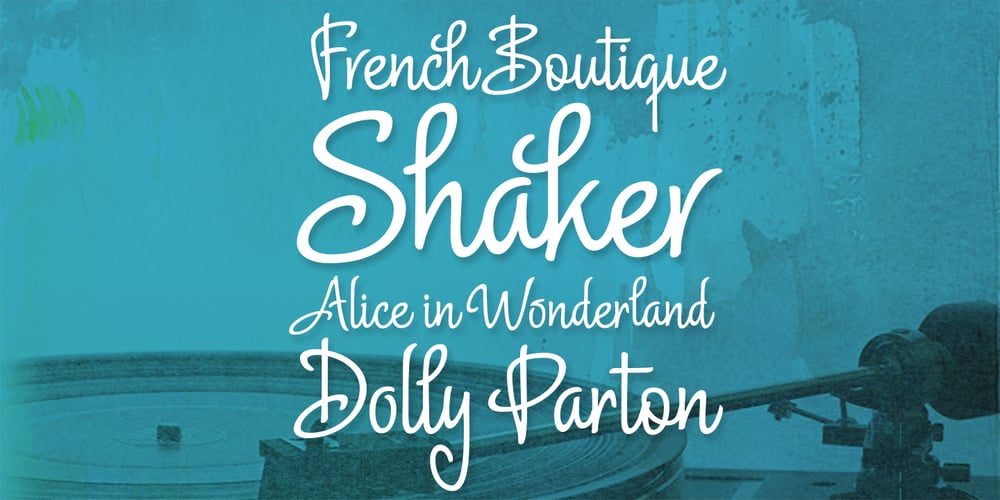
Delight Script
Delight Script font
Delight Script Font Family was designed by Alejandro Paul, Angel Koziupa and published by Sudtipos. Delight Script contains 1 styles and family package options. Delight Script is a fresh and original Angel Koziupa design that takes its cue from post-WWII advertising scripts. Casual, bouncy and playful, this upright script is built and engineered by Alejandro Paul with tons of alternates that can make every word look like real hand lettering. It covers all Latin-based languages.